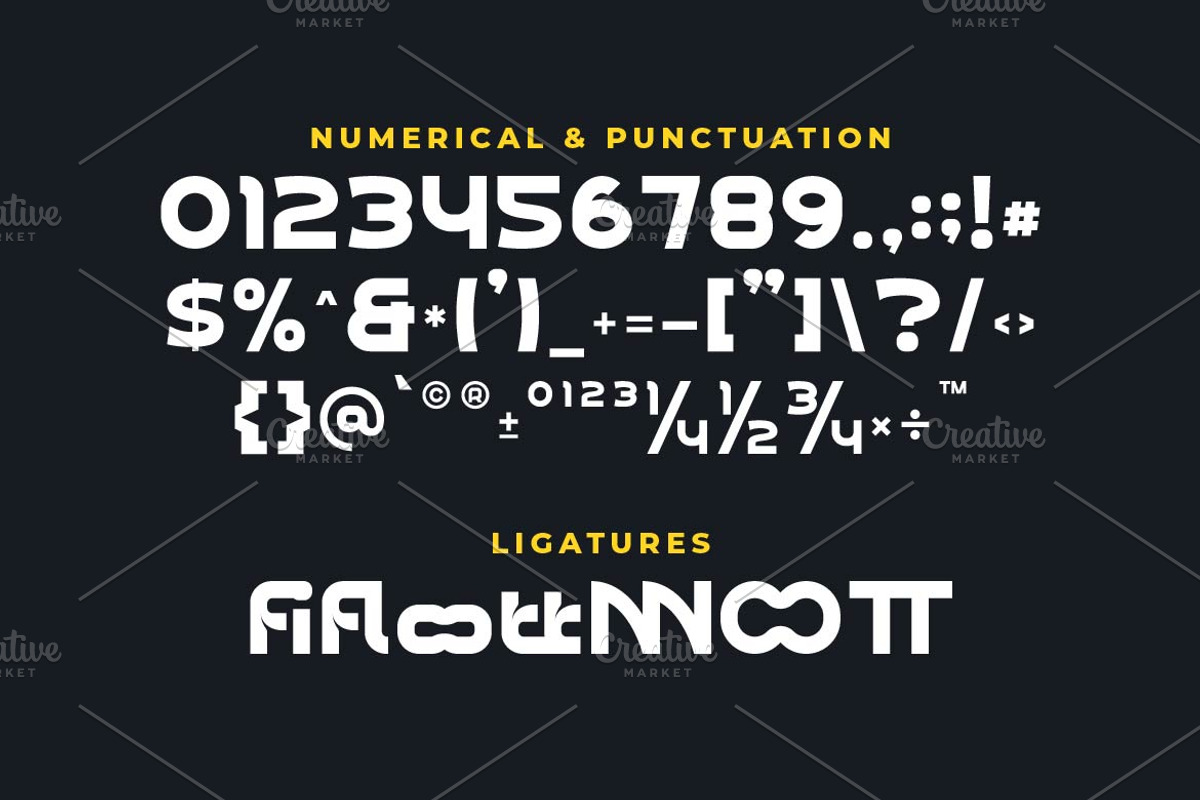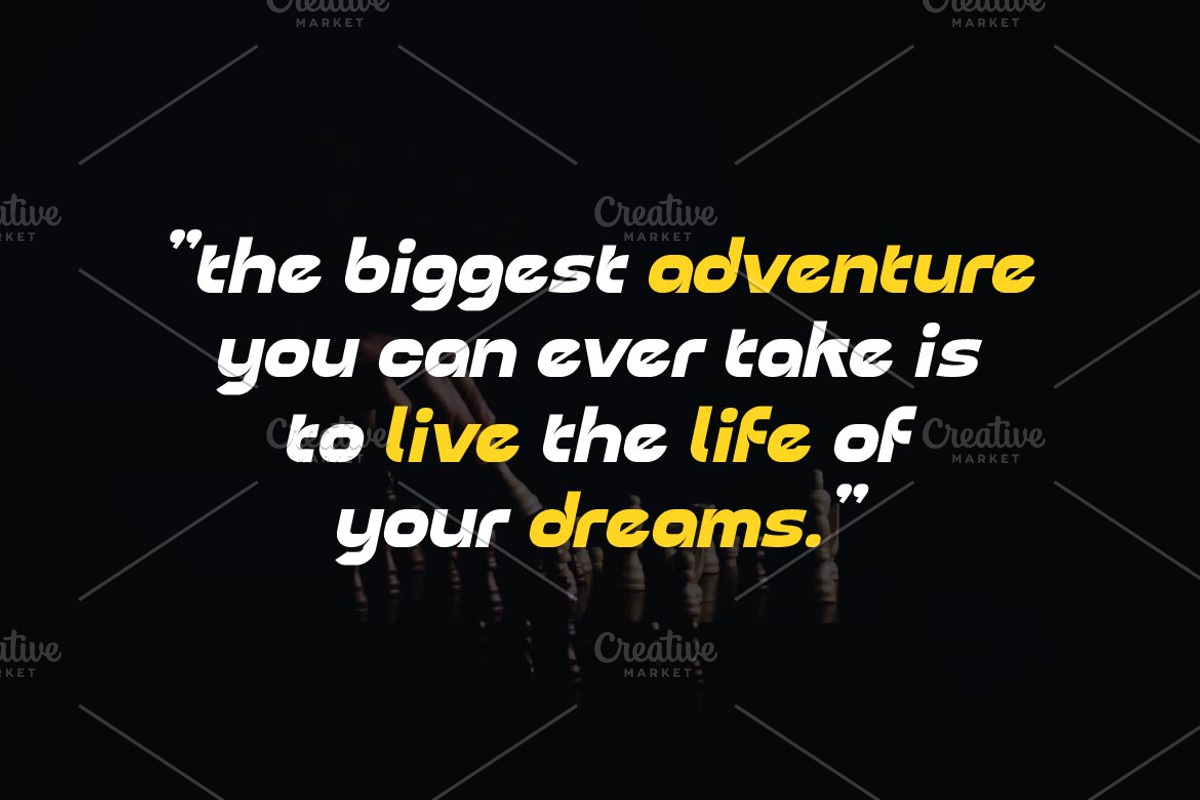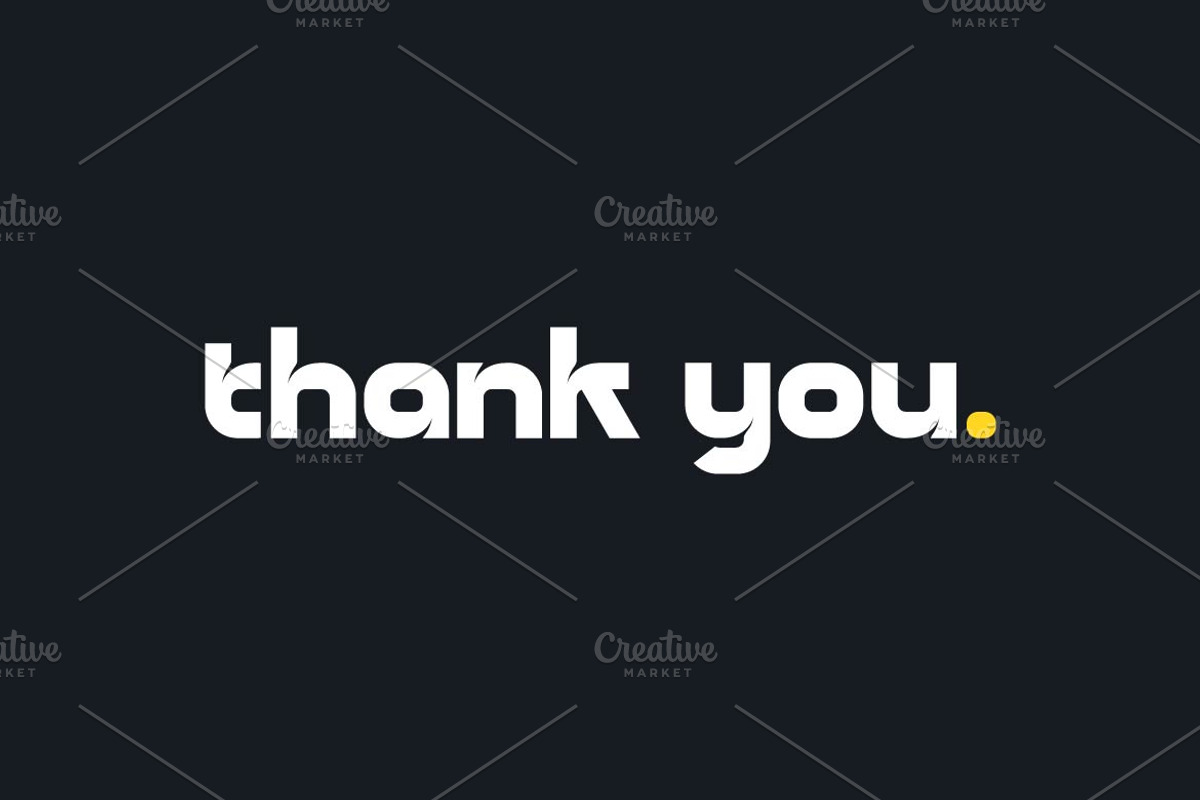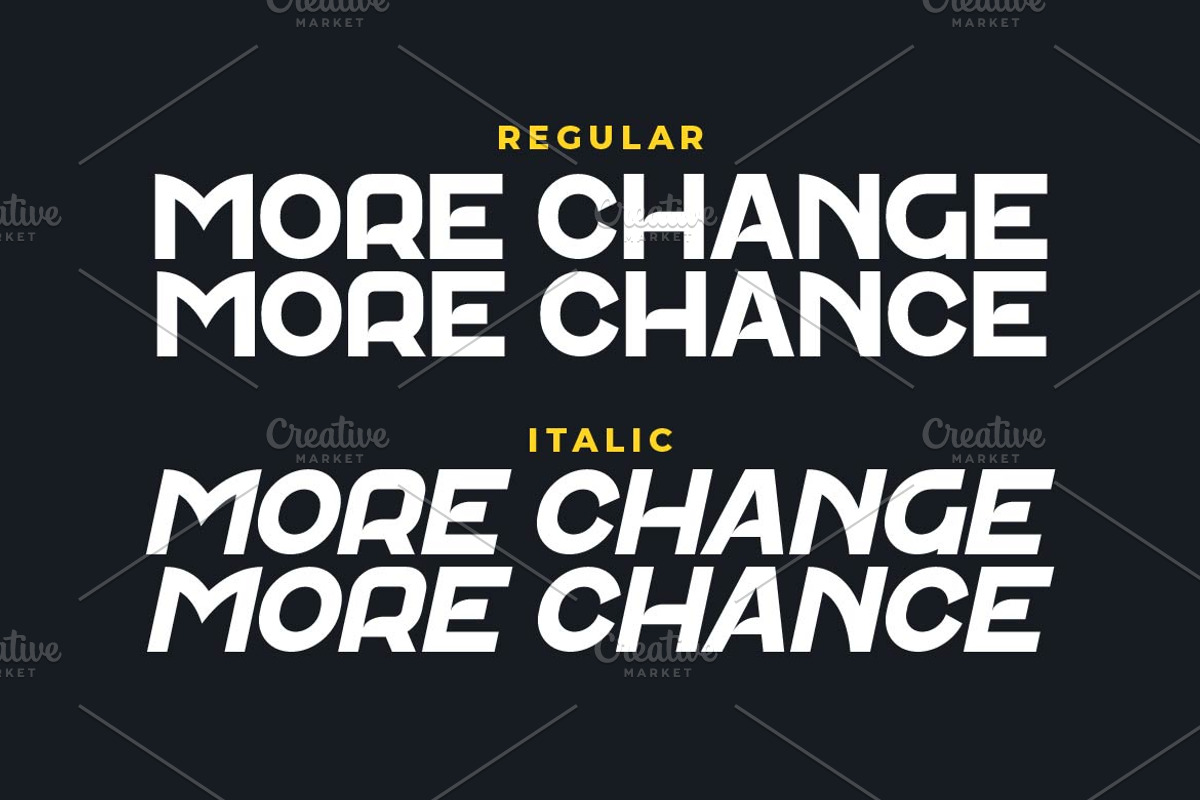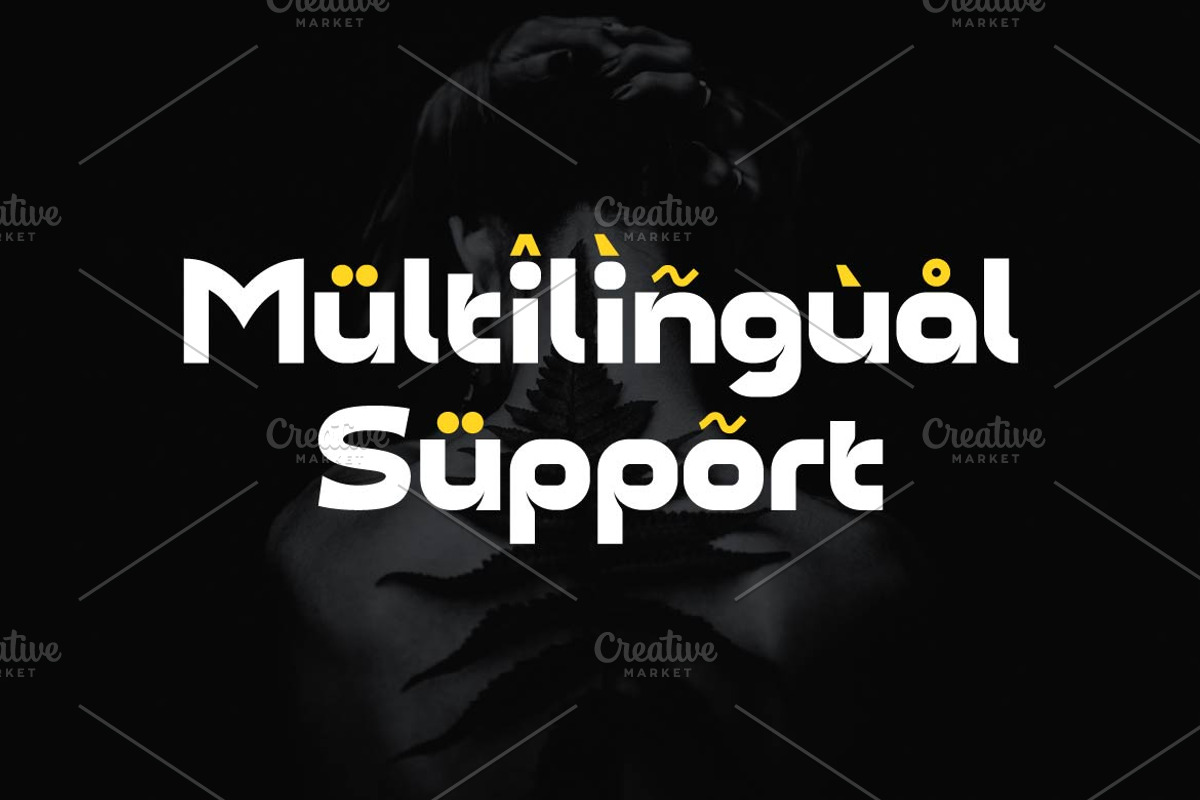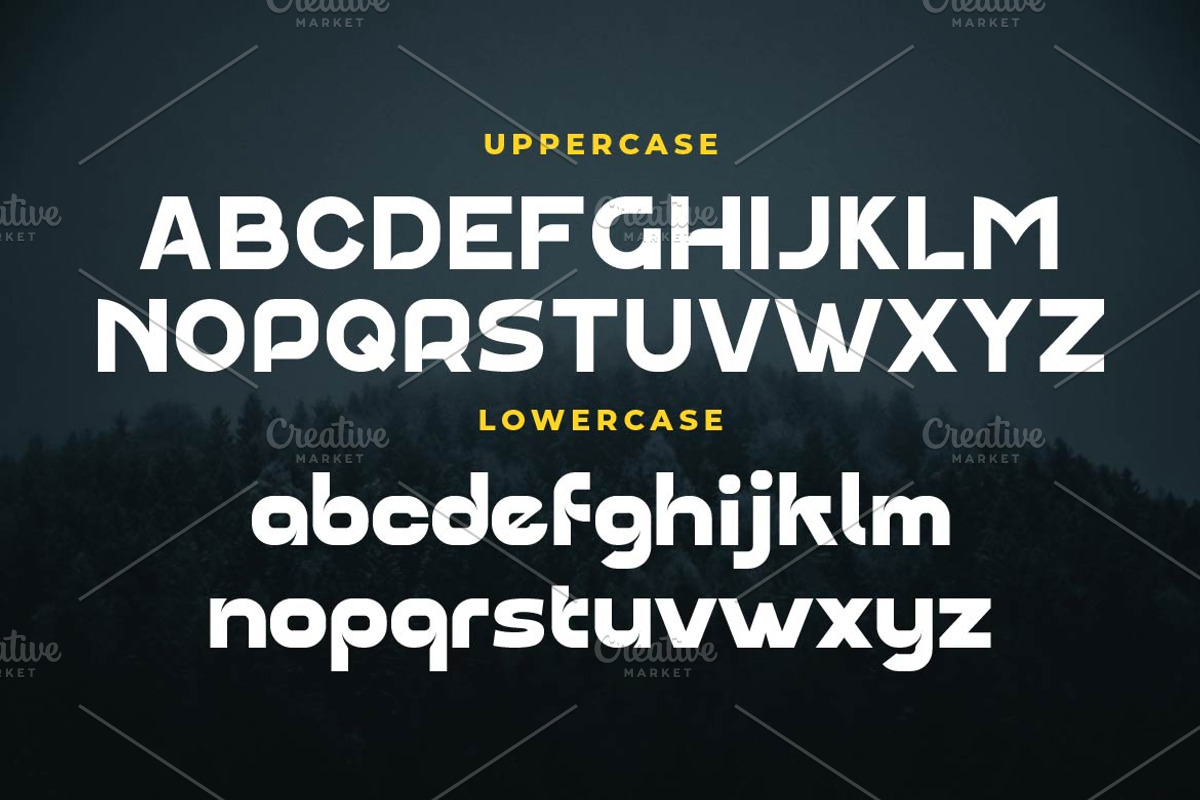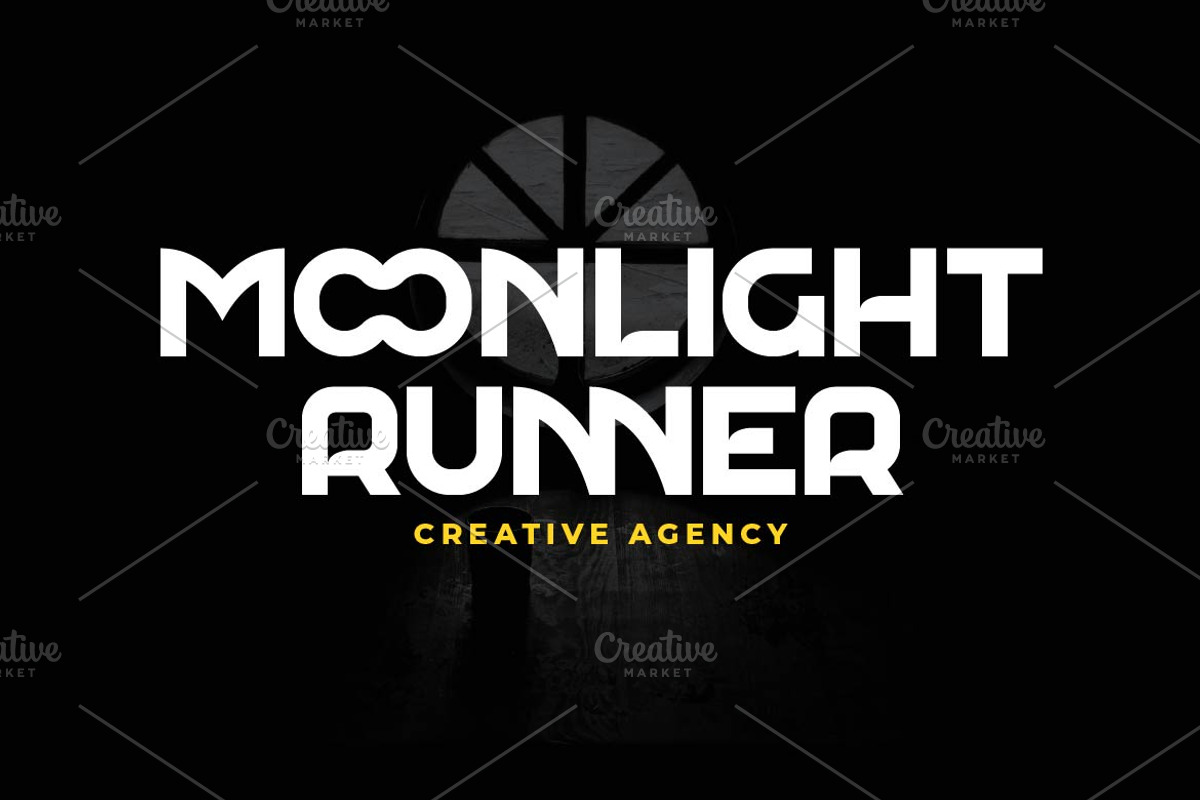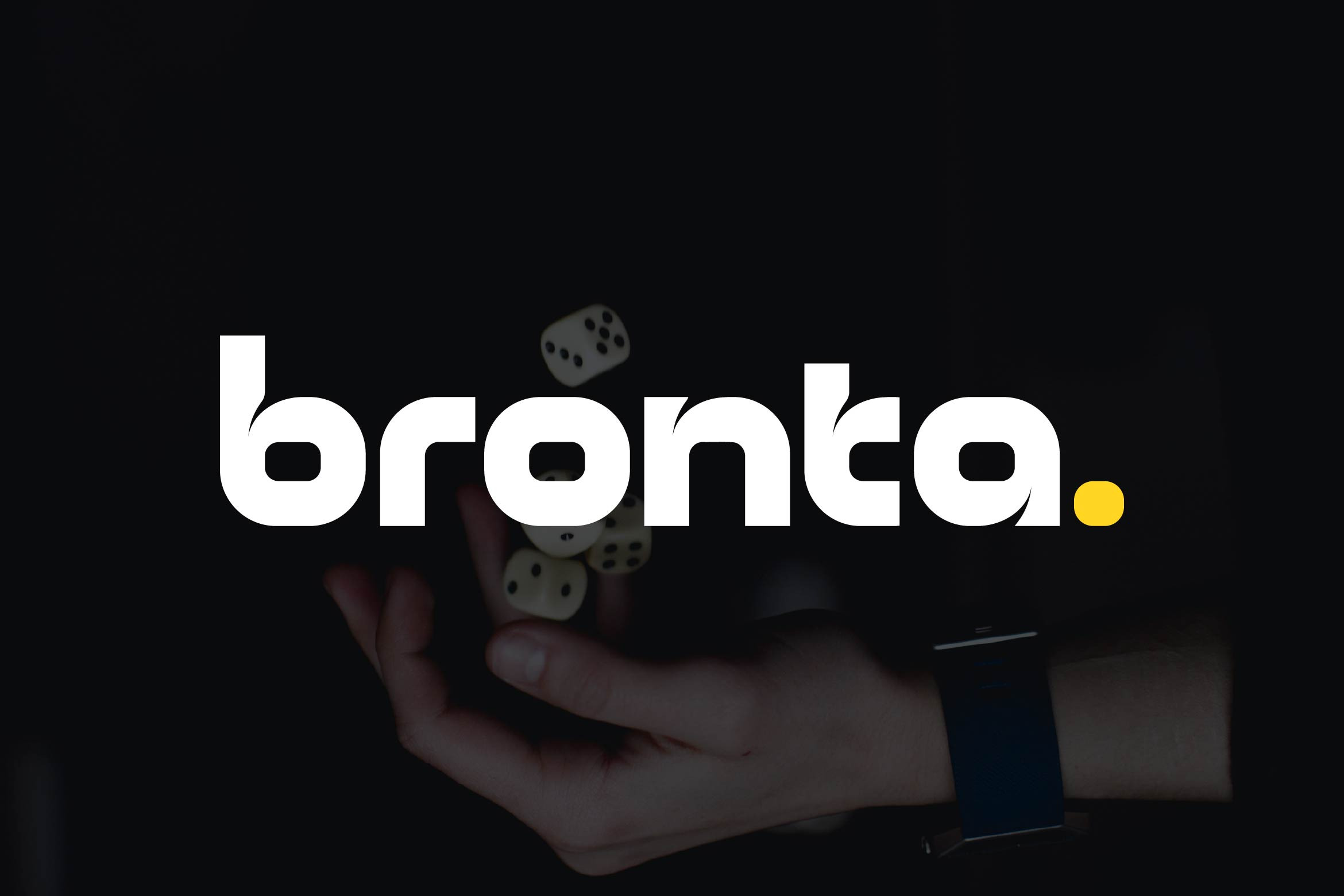
Bronta Round Logo Font
Bronta is a modern logo font designed to make bold brand statements. With clean lines, geometric balance, and sleek curves, Bronta delivers a fresh and confident look that's ideal for logos, headlines, packaging, and social media graphics.